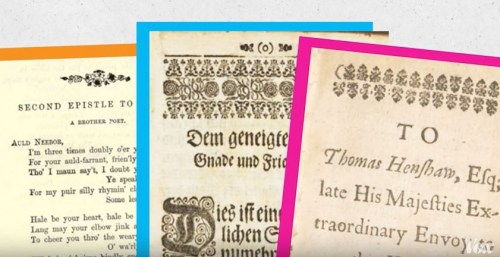
Why the Wingdings font exists
“As a means of writing sentences, Wingdings fails — but that was never its purpose. It was created to be used as a unique tool for the pre-internet era. It was akin to emojis, but with even more utility.” There also is a feature article on the subject.